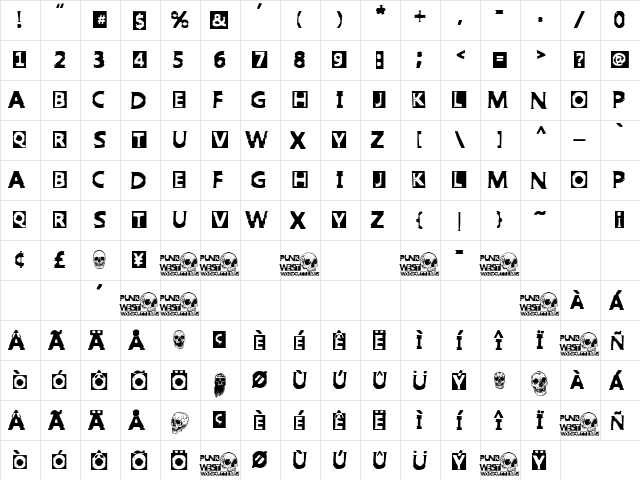
Punk West Regular
Design Context for Punk West Typeface
Punk West is a composed and adaptable typeface that performs quietly and consistently across a wide range of design contexts.